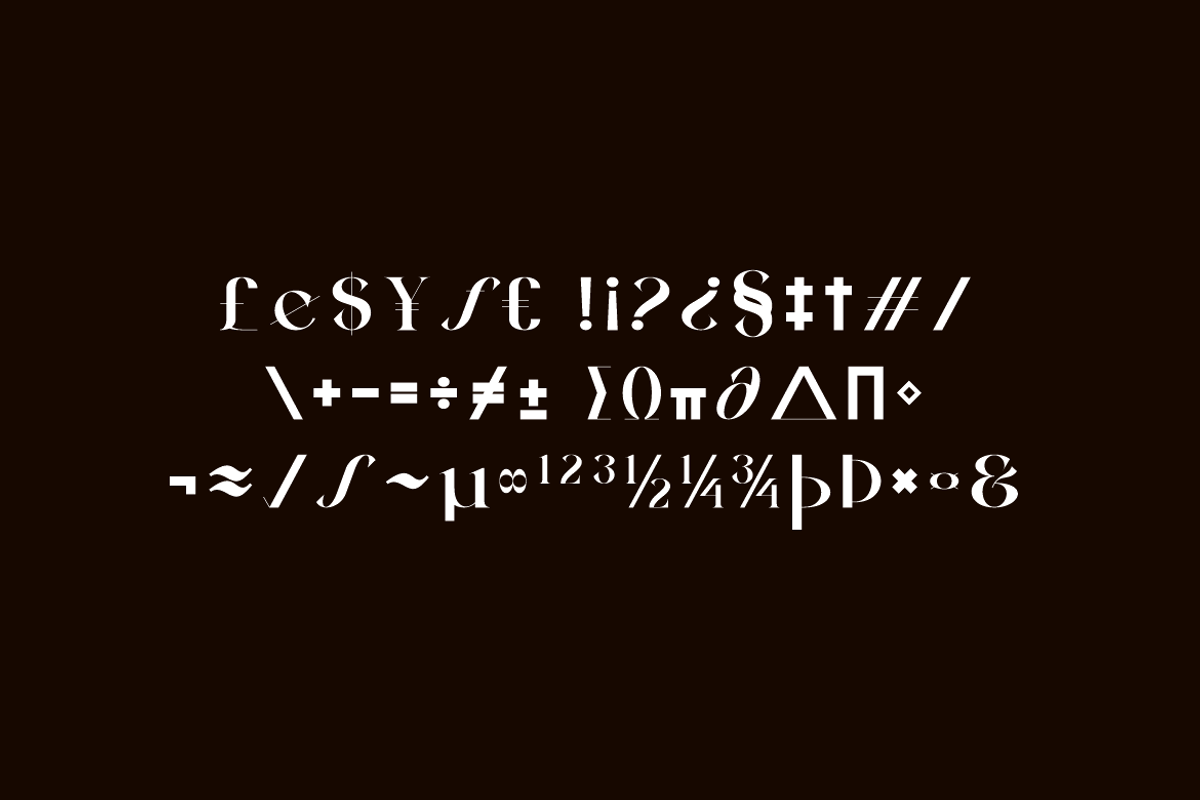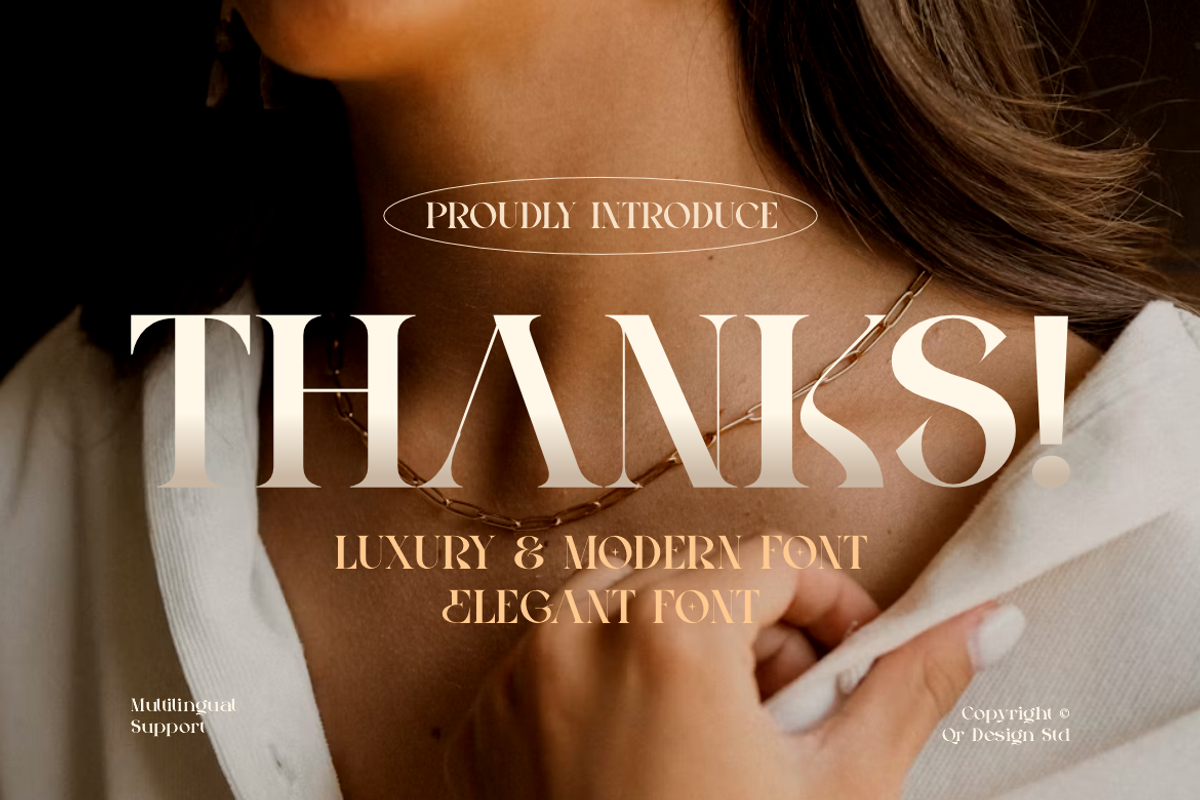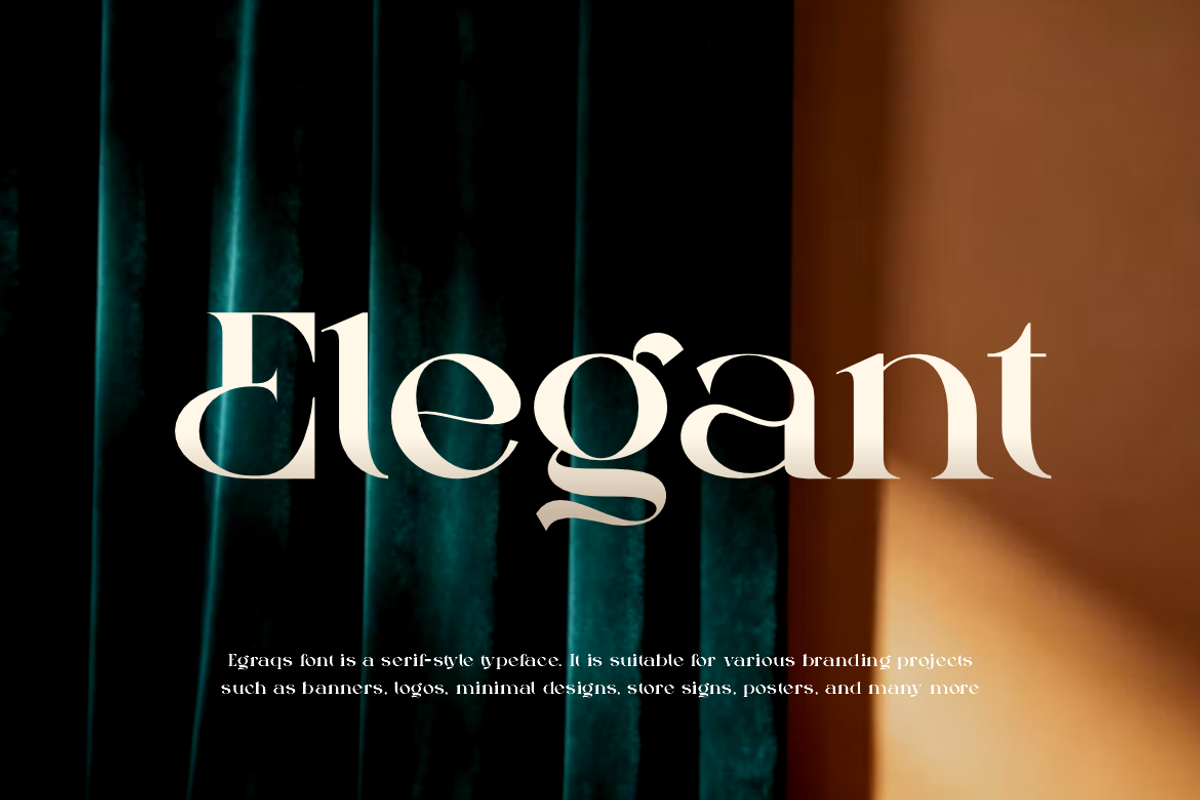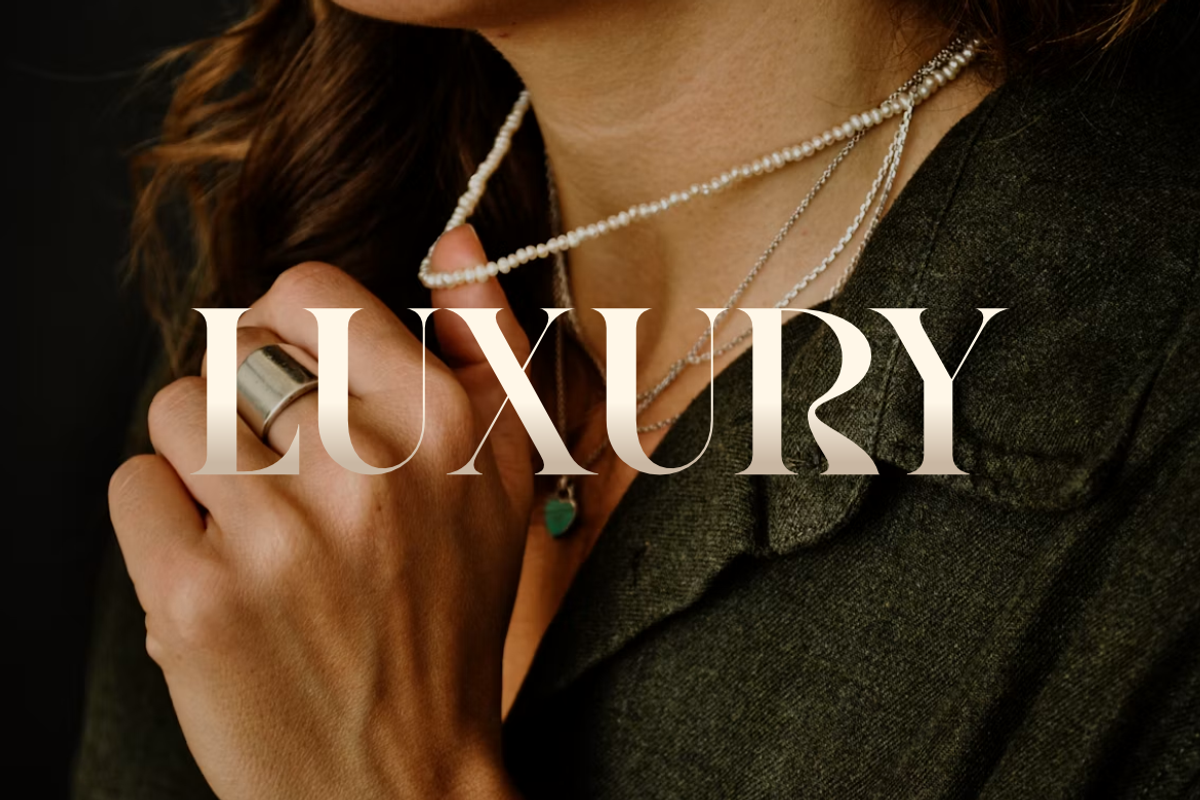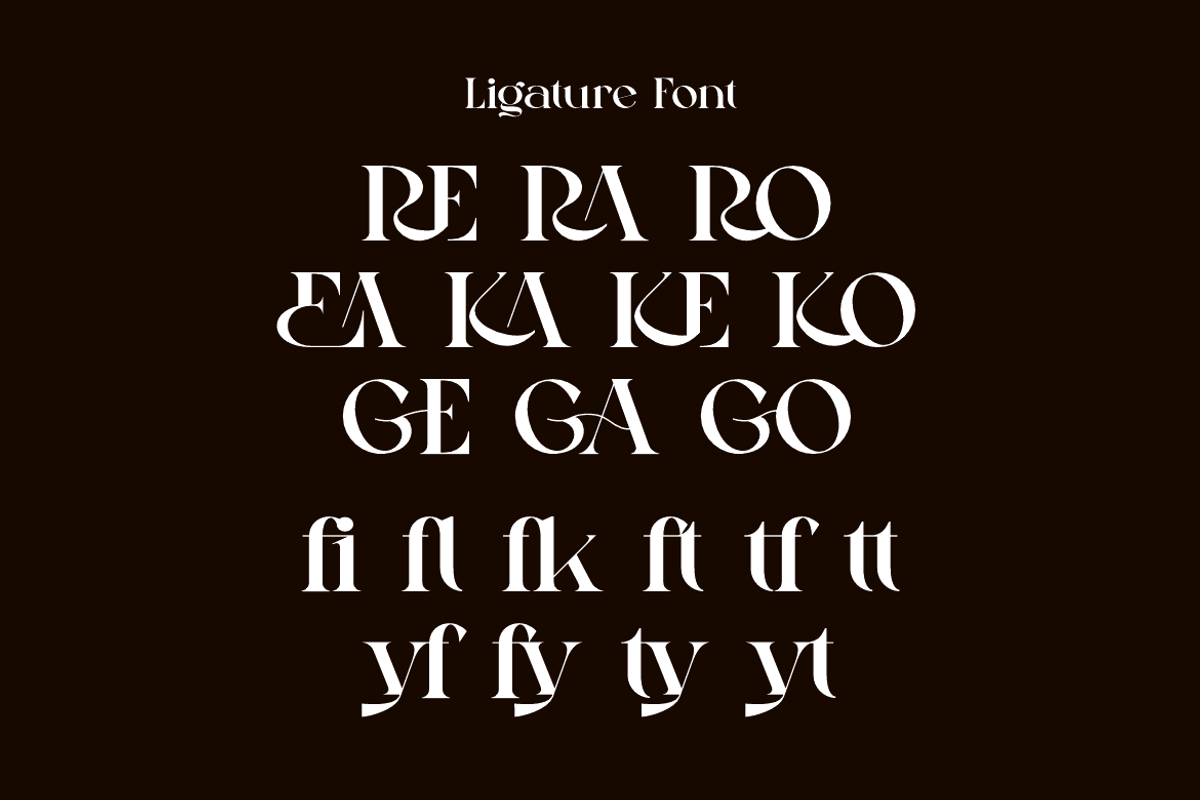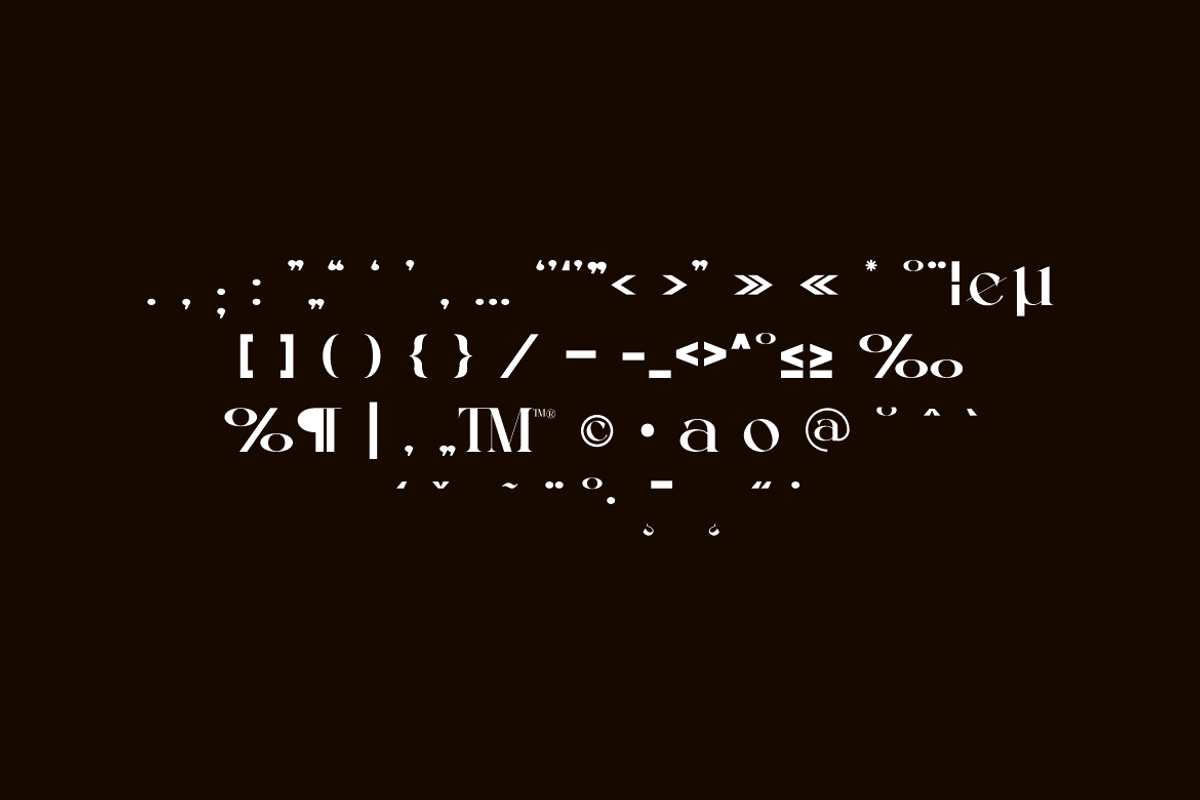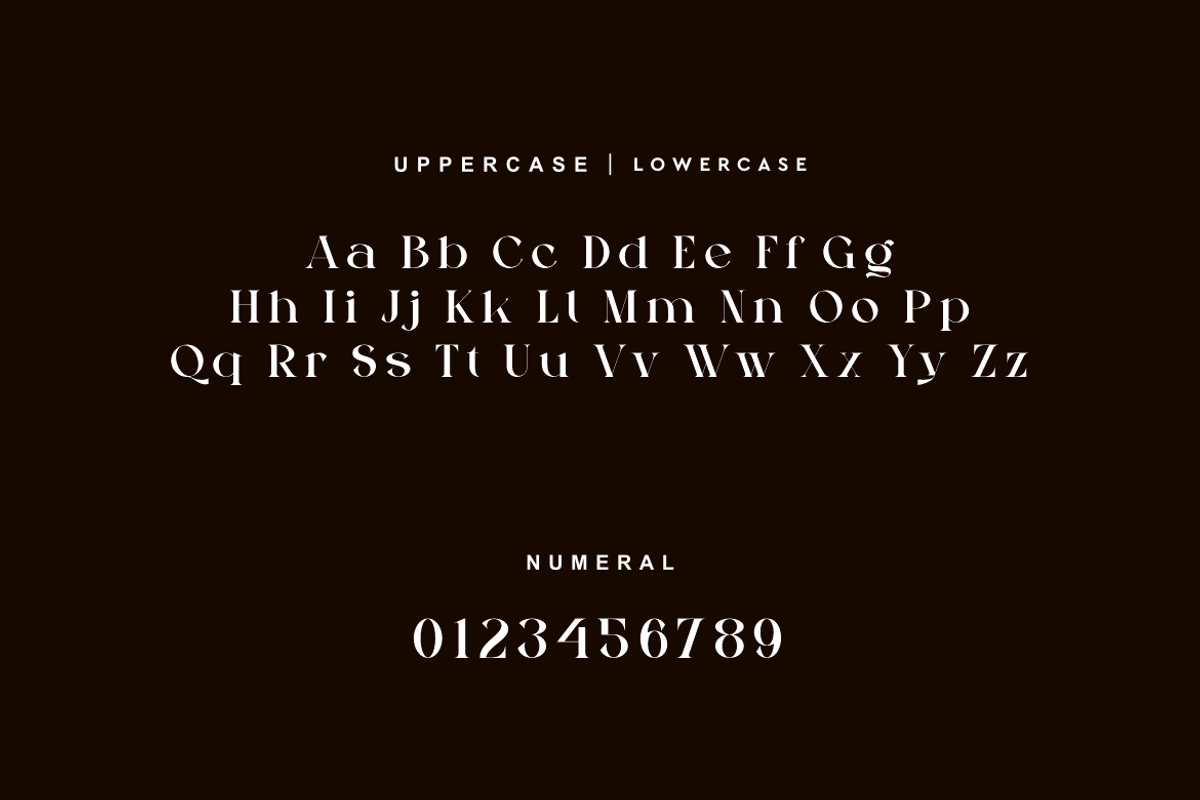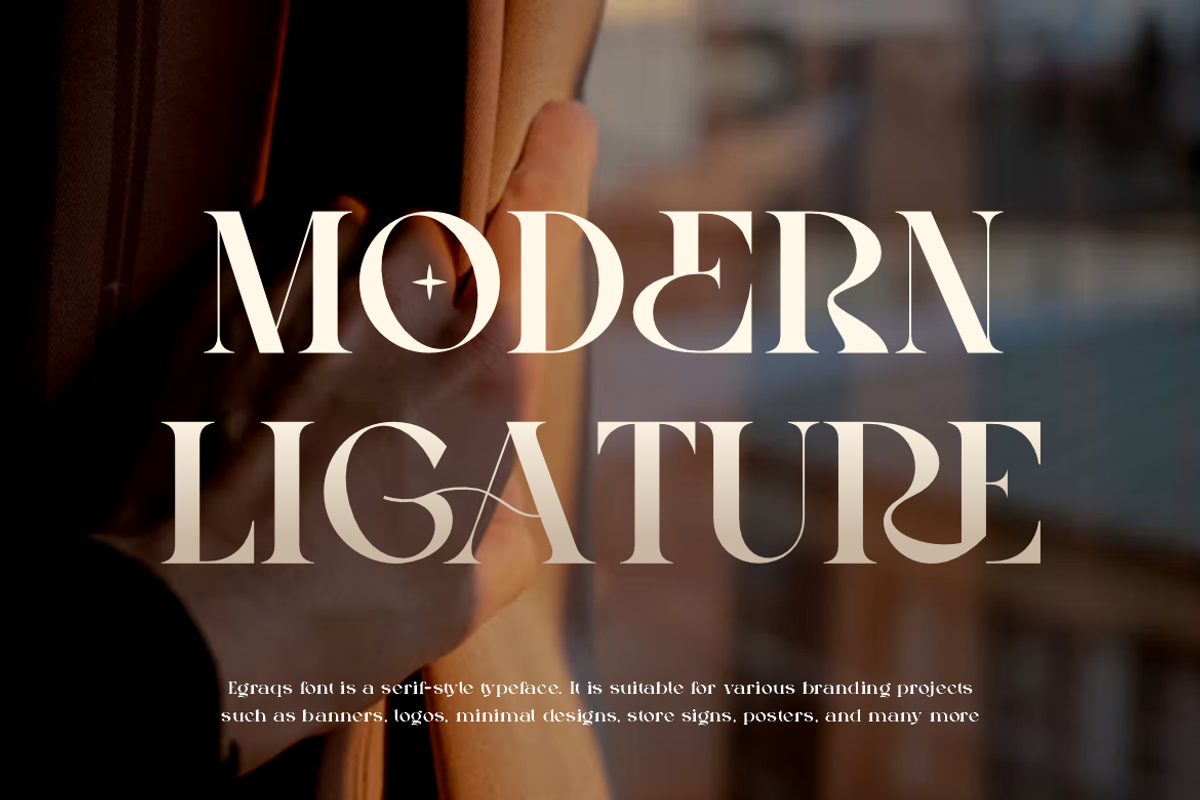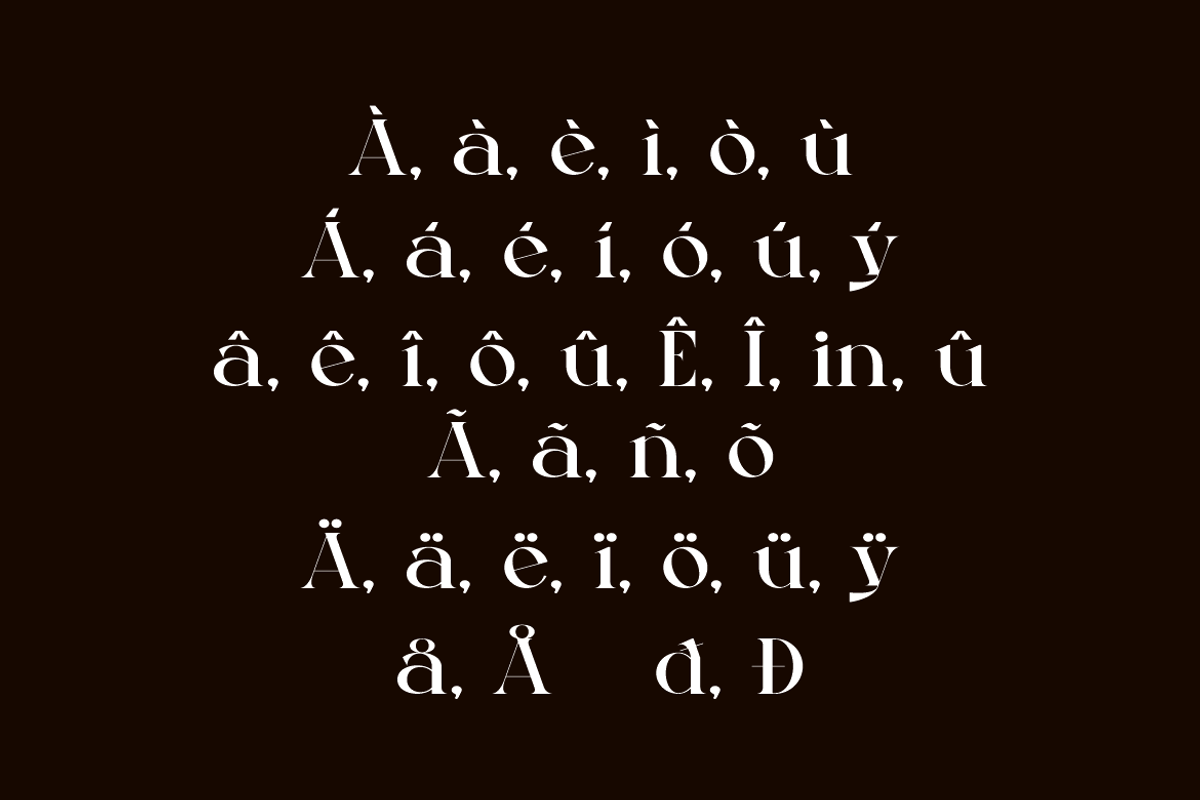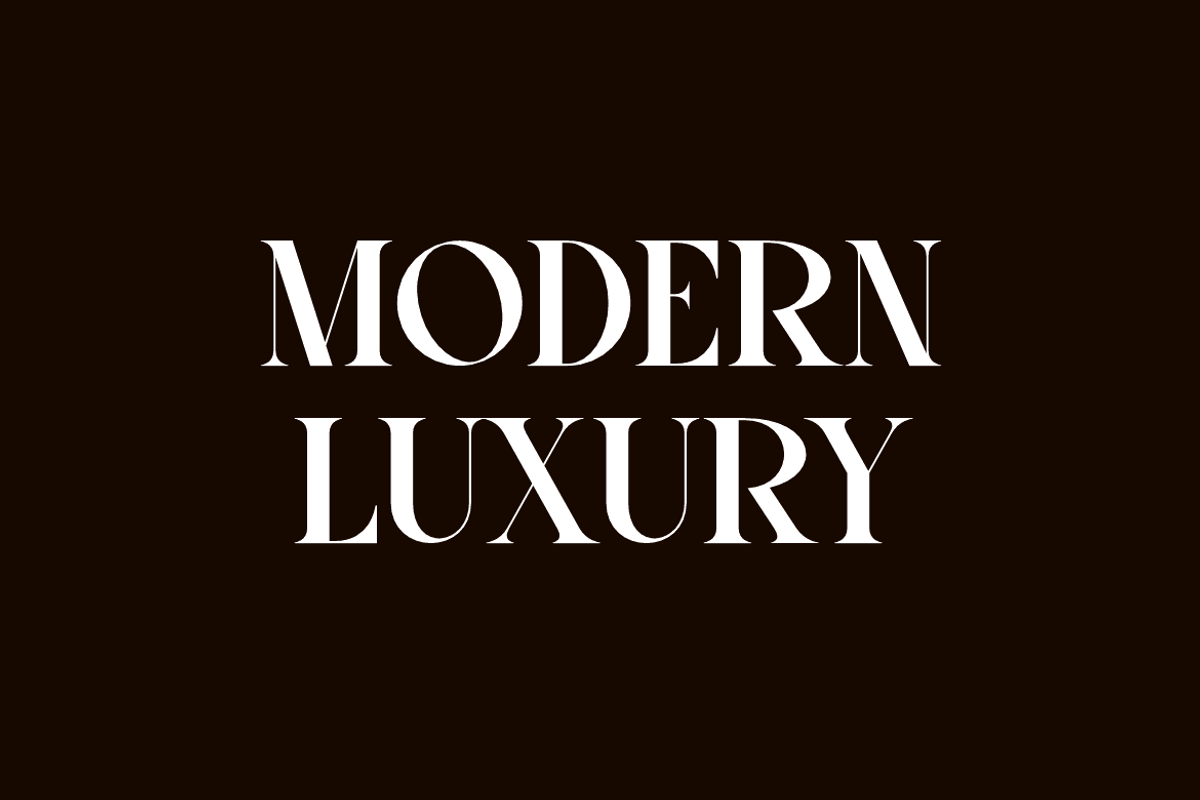
Egraqs - Luxury Serif Font
Egraqs Font is a serif and authentic display typeface.
It’s perfect for various branding projects such as logos, modern designs,
and more. This font stands out beautifully in a wide range of contexts.